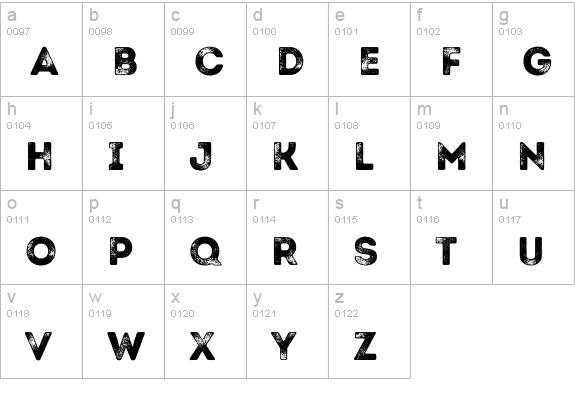
Intro Rust G Base font is a versatile and stylish typeface that exudes a sense of urban flair and modernity. Its bold and distinctive letterforms make it perfect for creating eye-catching designs for various projects. This font is ideal for logos, headlines, posters, and more, adding a touch of edginess to any design. What's even better is that Intro Rust G Base font is available for free download at FontsMarket.com. This means you can easily access this unique and high-quality font without any cost, making it a valuable addition to your font collection. Don't miss out on the opportunity to enhance your designs with this fantastic font that combines contemporary aesthetics with a touch of urban charm.